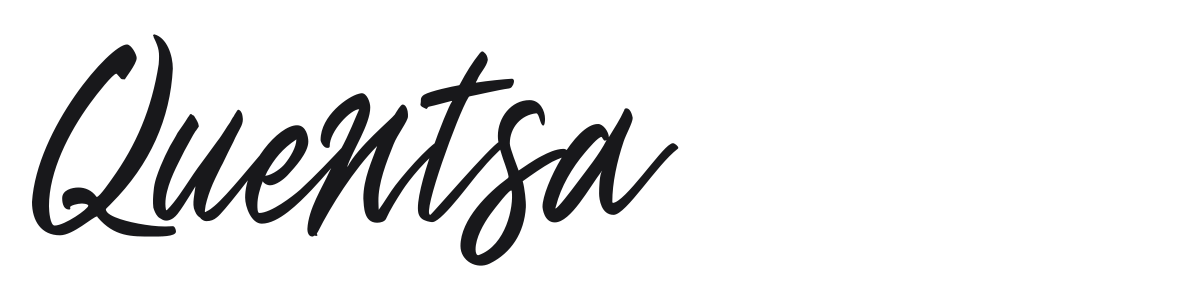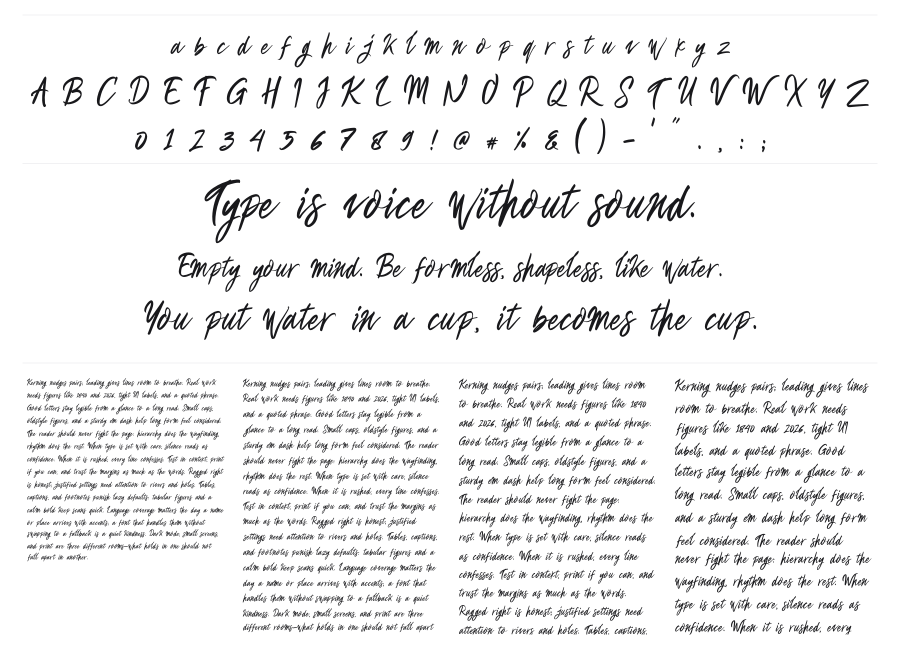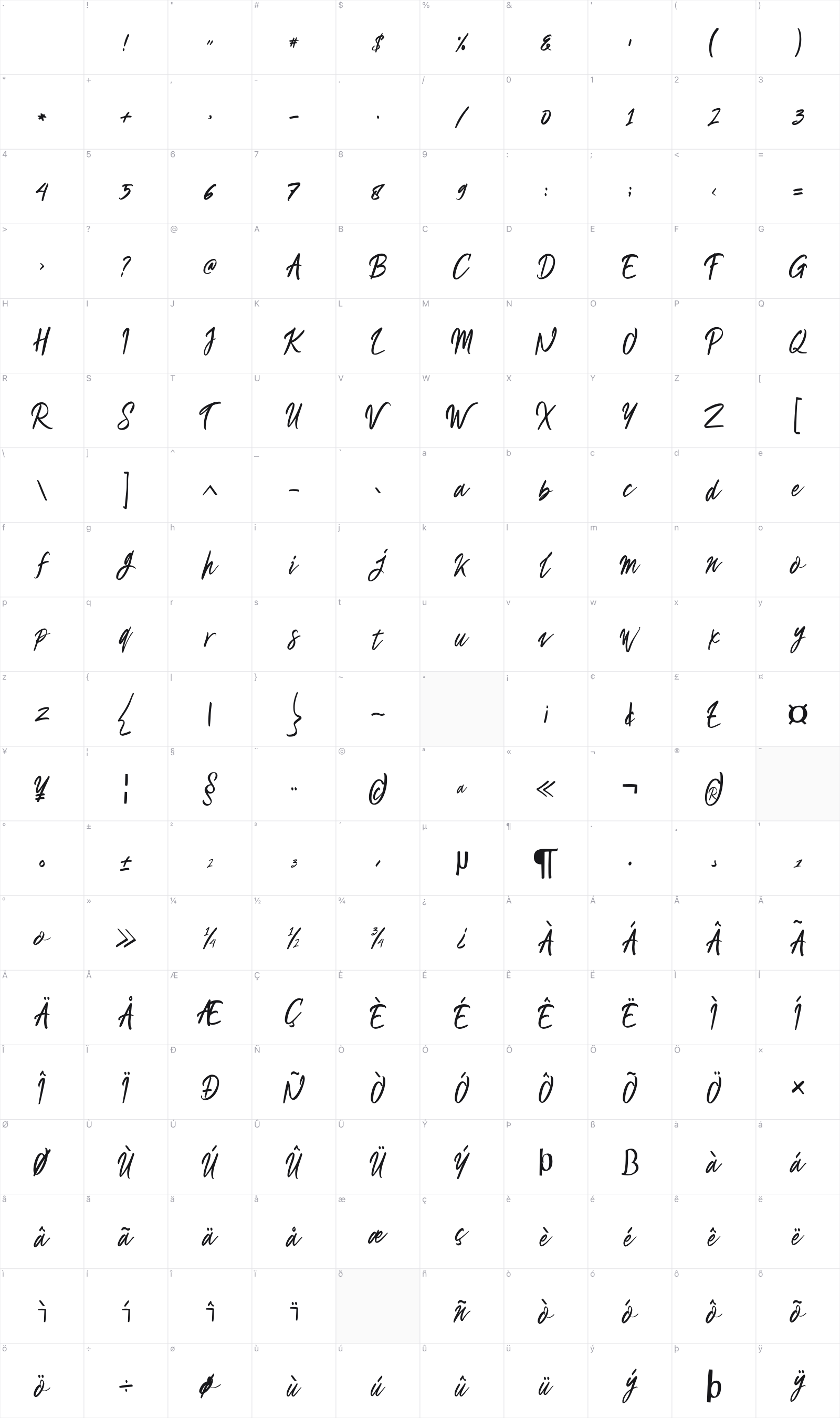
Quentsa
Quentsa is a casual brush script with the loose energy of real hand-lettering, built around thick-to-thin stroke variation and natural ink texture. Letters connect fluidly with a bouncy baseline that keeps the design feeling alive rather than mechanical. It brings warmth and personality to branding, packaging, and editorial headlines.